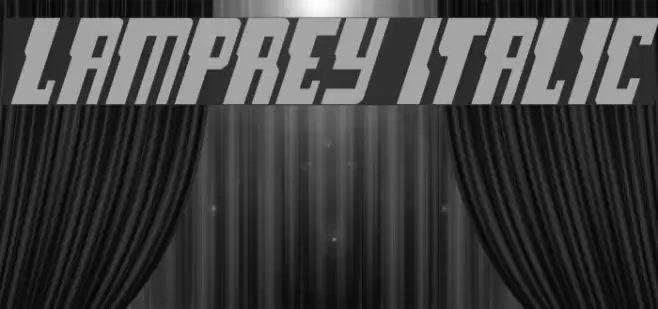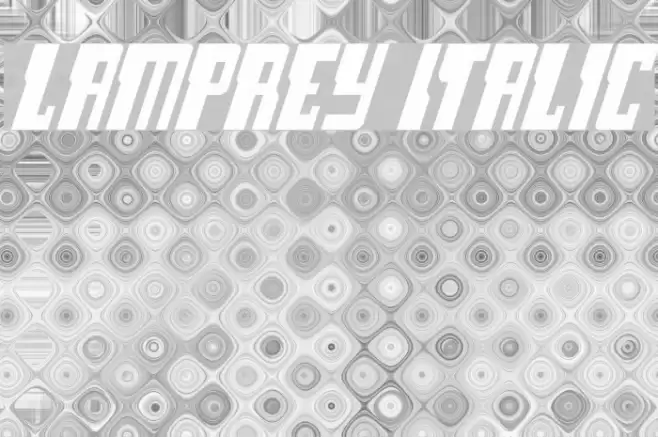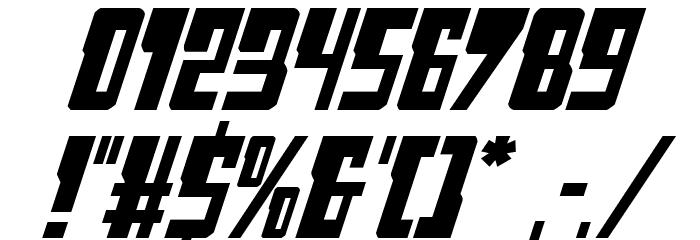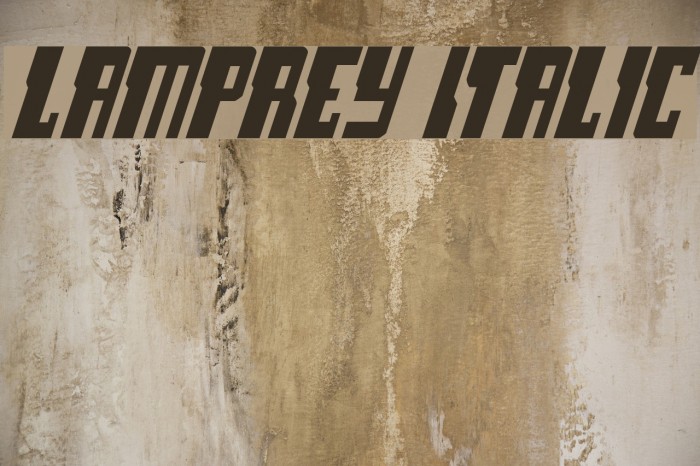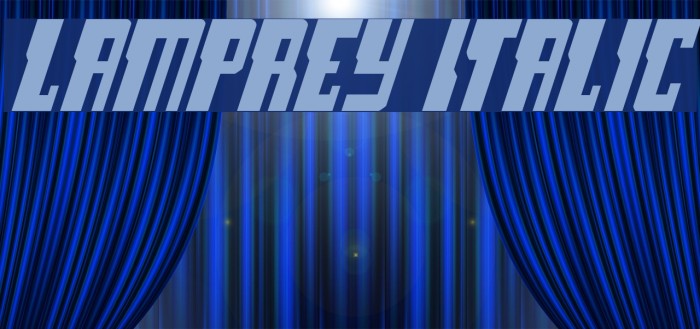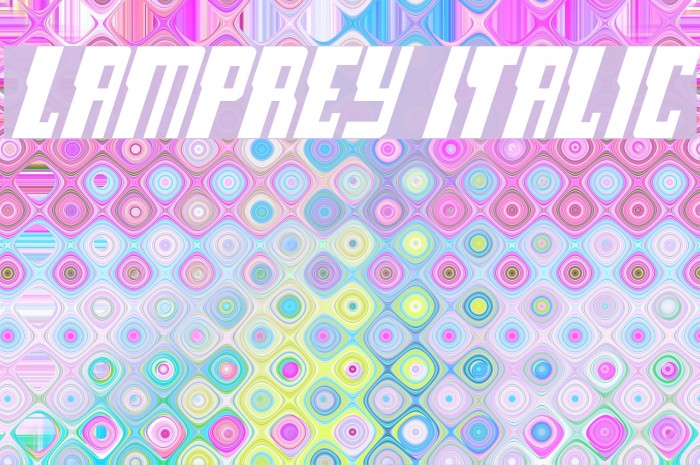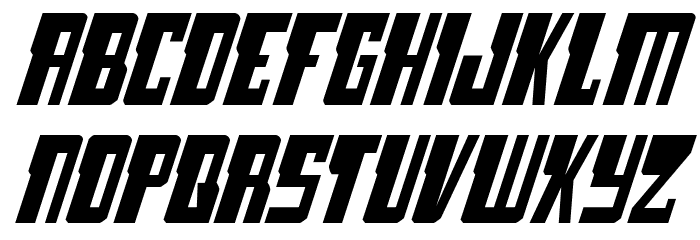
Lamprey Italic Font
Lamprey Italic Description
This font features a bold and dynamic style with a strong italic slant, giving it a sense of motion and energy. The characters are angular and geometric, with sharp edges and a futuristic appearance. The uppercase and lowercase letters maintain a consistent style, while the numerals and special characters complement the overall design. The font's boldness and unique style make it suitable for attention-grabbing headlines and modern design projects.
A bold, italic, and angular font with a futuristic style from Uncategorized fonts.
- Proposed Projects: Ideal for sports branding, sci-fi themed designs, posters, and dynamic headlines.